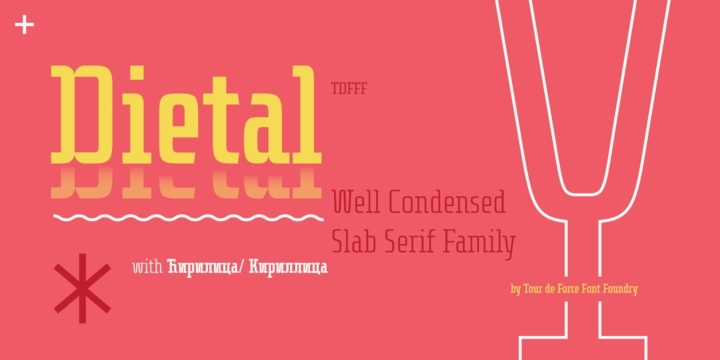
Dietal & Dietal Sharp Font
Dietal & Dietal Sharp Font is perfect for modern tech branding, cutting-edge design agencies, precision engineering logos, contemporary architecture signage, innovative product packaging, sleek automotive branding, high-tech interface design, minimalist corporate identities, sharp fashion campaigns, and progressive digital platforms.
What makes Dietal & Dietal Sharp Font so exciting is its exceptional dual-purpose design that offers both refined sophistication and razor-sharp precision through complementary letterforms that seem engineered for maximum impact and contemporary appeal. This innovative font duo captures the essence of modern design excellence and technical precision with characters that communicate both elegant restraint and cutting-edge innovation. The fonts' contrasting design elements perfectly balance smooth sophistication with sharp-edged modernity, creating an indispensable toolkit that communicates design intelligence, technical excellence, and contemporary authority, making them essential for brands operating at the intersection of elegance and innovation in competitive modern markets.
Dietal & Dietal Sharp Font comes in multiple font families including Regular, Bold, Light, Italic, Bold Italic, Precision, Edge, and Contemporary variations. Each family member maintains the core modern characteristics while offering different sharpness levels and stylistic approaches to suit various cutting-edge design and technical communication requirements.
The precision engineering in Dietal & Dietal Sharp Font makes it particularly effective for technology companies and design-forward organizations where conveying both sophisticated elegance and cutting-edge innovation is crucial for market positioning and competitive advantage. The complementary fonts work exceptionally well together or independently across all modern applications, from digital interfaces to architectural signage, maintaining consistent contemporary impact while offering design flexibility.
Modern branding professionals recognize how Dietal & Dietal Sharp Font transforms ordinary communications into sophisticated statements of design excellence and technical innovation. The font duo's comprehensive character sets include extensive international language support, technical symbols, and contemporary typographic features that accommodate complex modern branding requirements and global technology markets.
For creative professionals serving technology innovators, design agencies, and contemporary brands, Dietal & Dietal Sharp Font serves as the ultimate foundation for establishing memorable visual identities that capture the essential qualities of design sophistication, technical precision, and contemporary innovation that define successful brands leading the evolution of modern design and technology in competitive global markets where both elegance and edge matter.